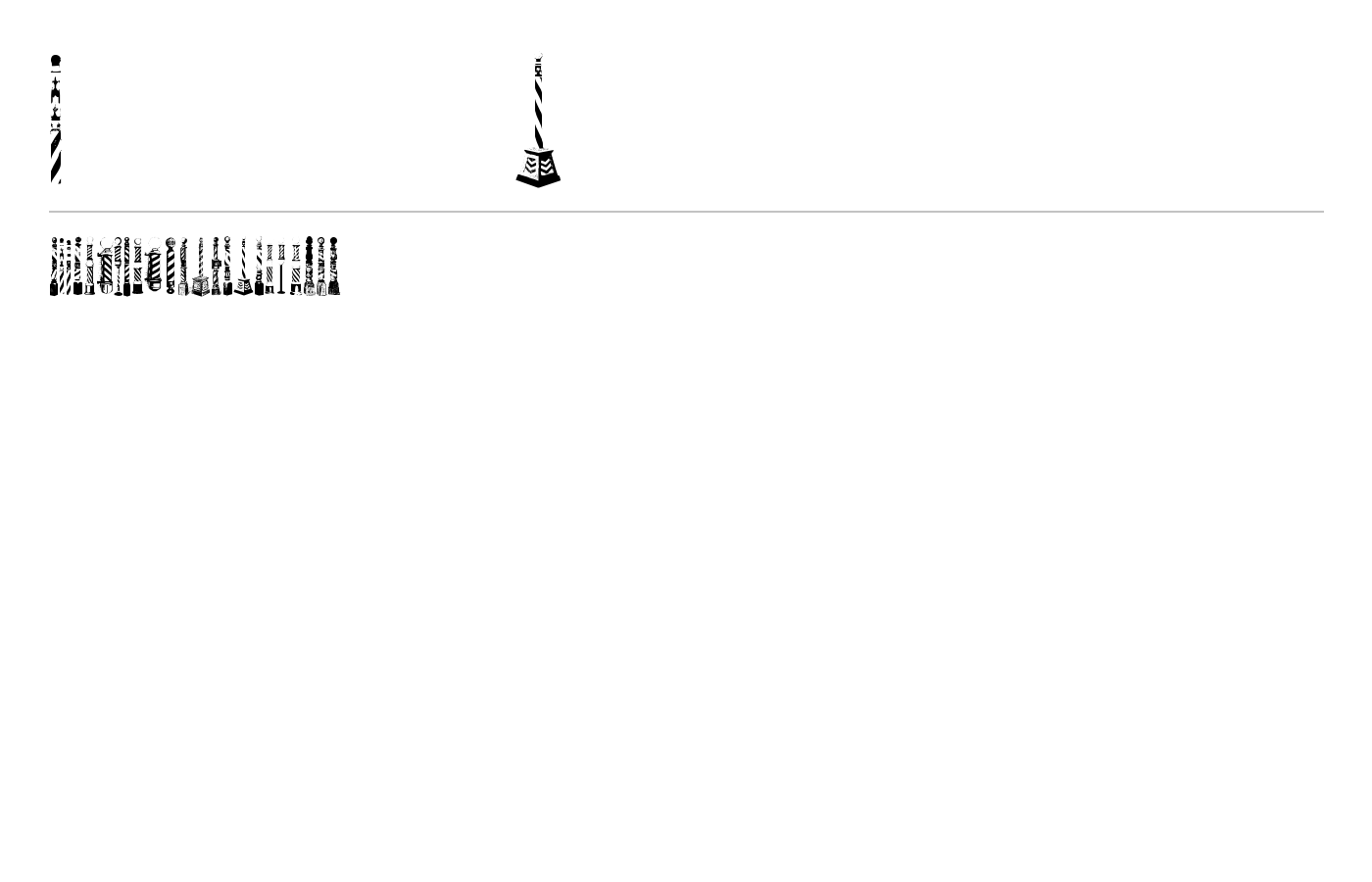
BarberPoles Font is a highly decorative and playful display typeface that creatively mimics the iconic striped pattern of traditional barber poles within its characters. This unique font combines bold, condensed shapes with intricate striped details, giving it a vintage yet whimsical feel perfect for eye-catching logos, themed packaging, or nostalgic branding projects. Its distinct style makes it ideal for designs seeking a fun and memorable statement with a nod to classic barber shop imagery.
BarberPoles Font
About BarberPoles Font
| Font family | BarberPoles Font |